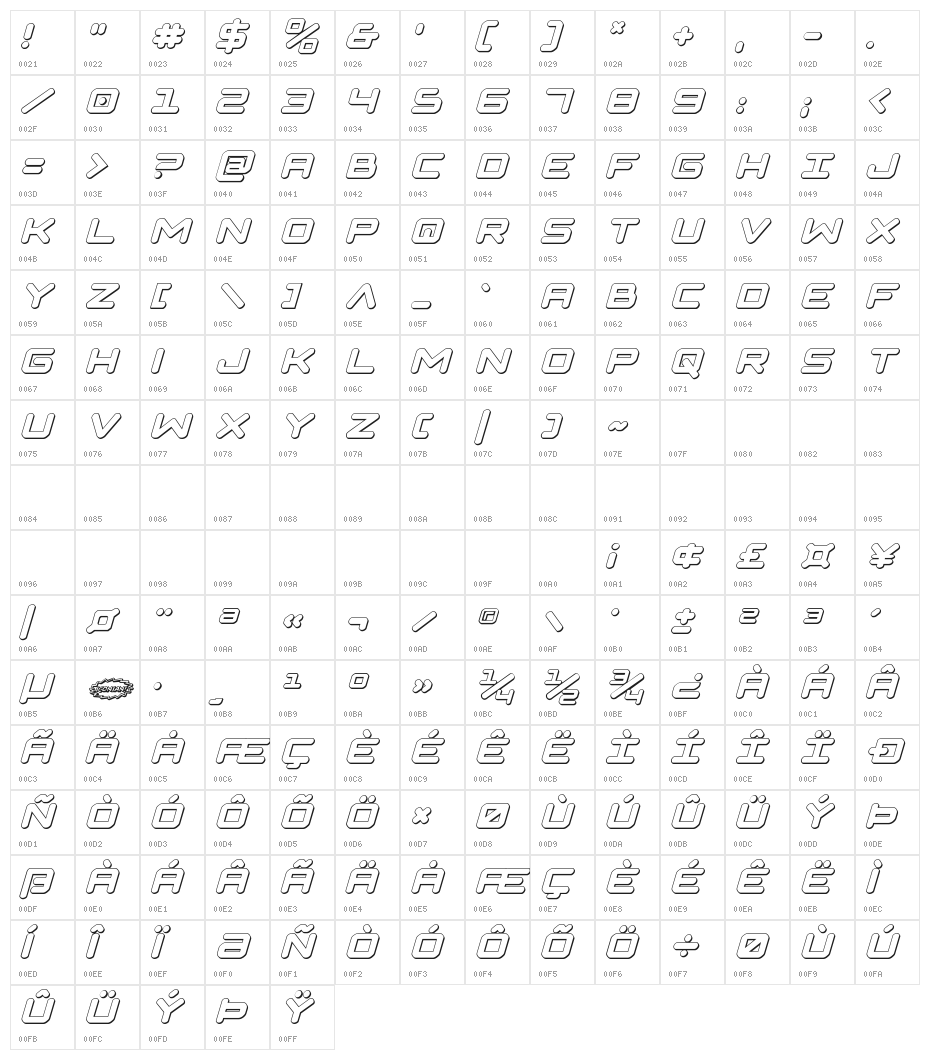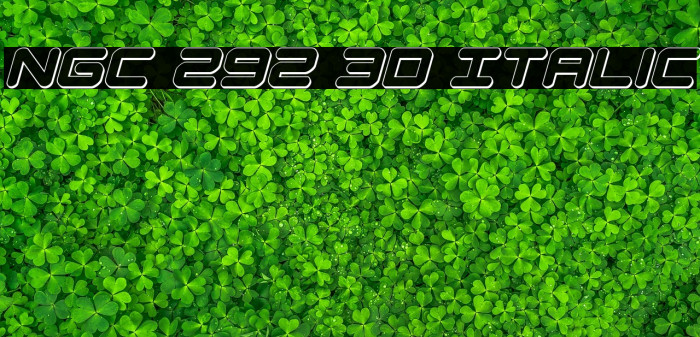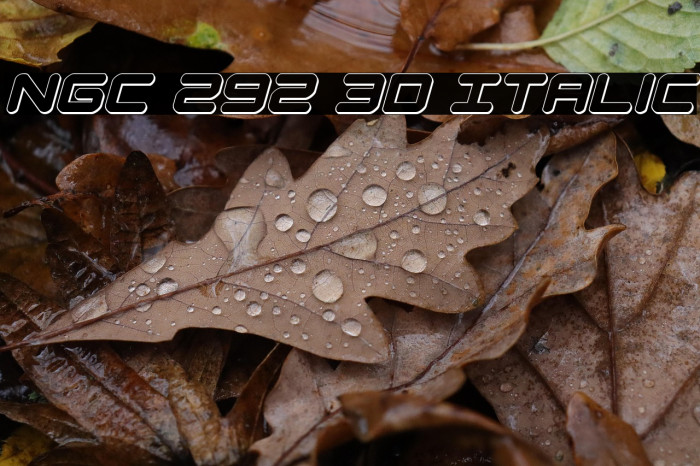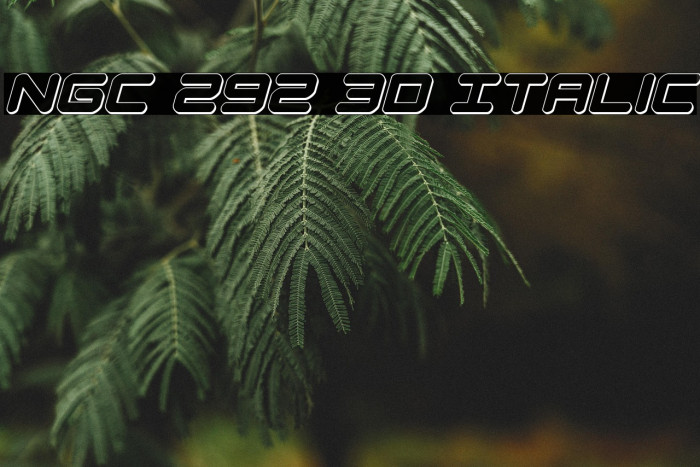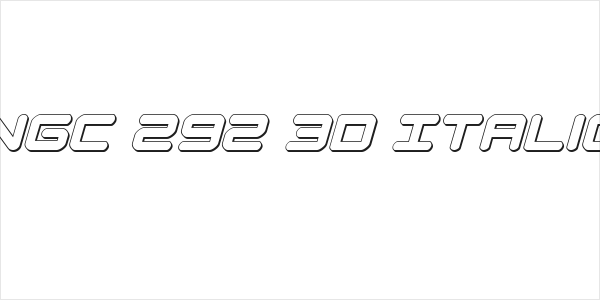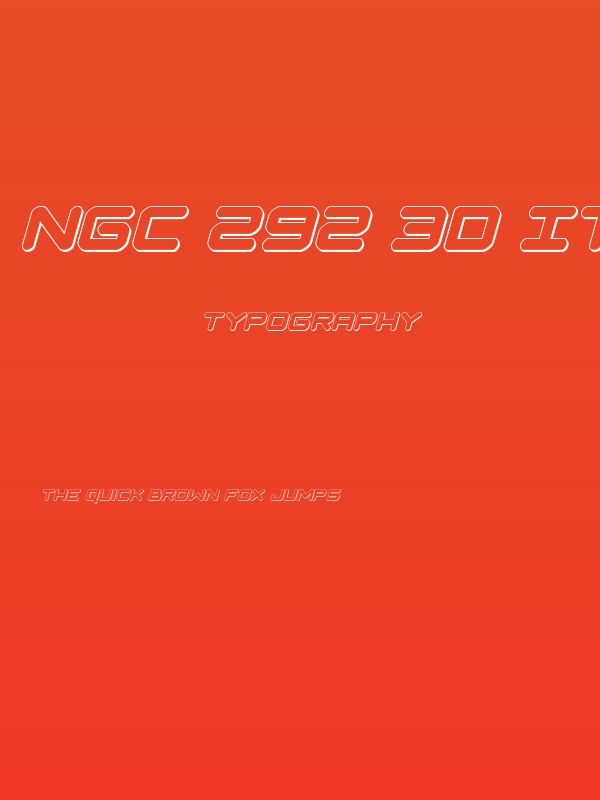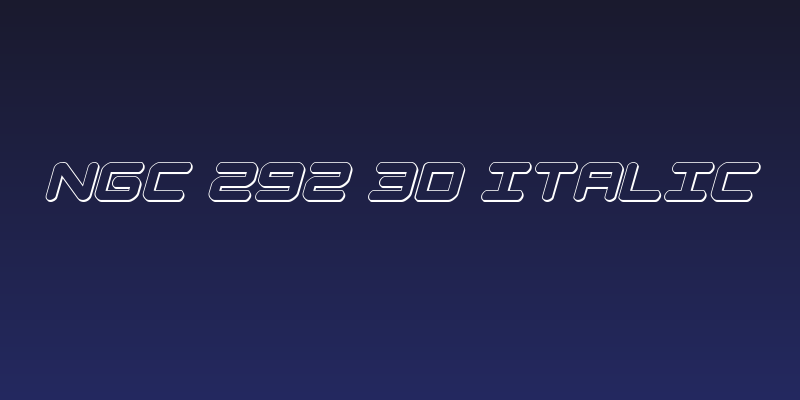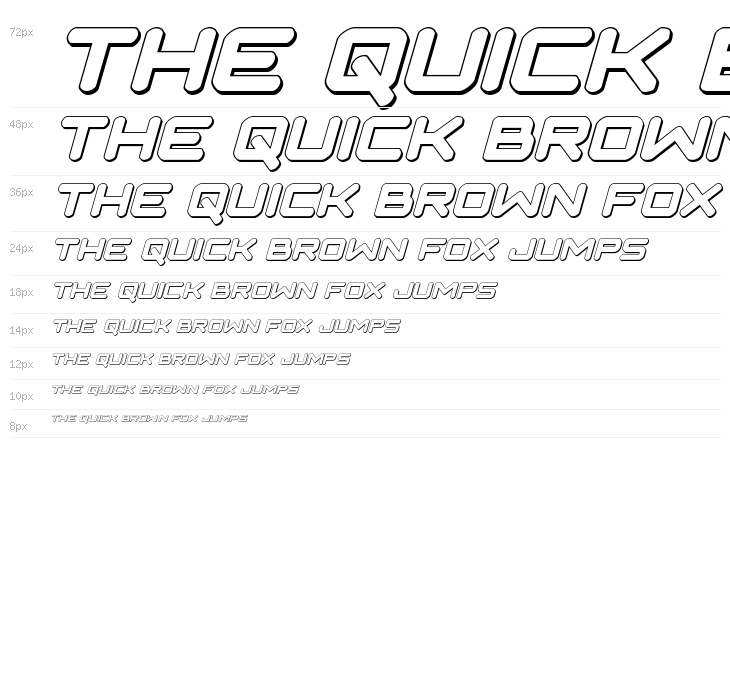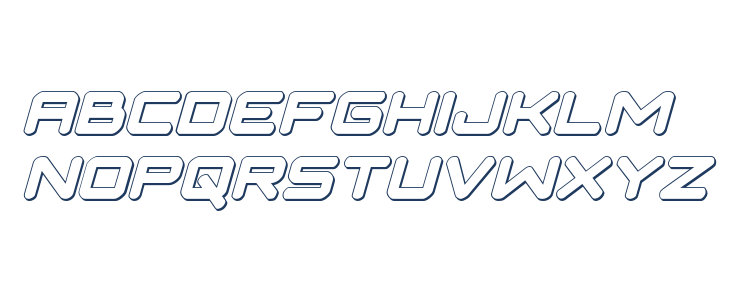
NGC 292 3D Italic Font
NGC 292 3D Italic Description
This font features a bold, futuristic design with a three-dimensional effect that gives it a unique, standout appearance. The characters are outlined, creating a hollow look that adds depth and dimension. The italic slant enhances the dynamic and modern feel, making it ideal for projects that require a sense of movement or speed. The uppercase and lowercase letters maintain a consistent style, with rounded edges and a geometric structure. The numerals and special characters follow the same design principles, ensuring uniformity across all glyphs.
Proposed ProjectsIdeal for sci-fi themed projects, video game titles, tech branding, and futuristic posters.